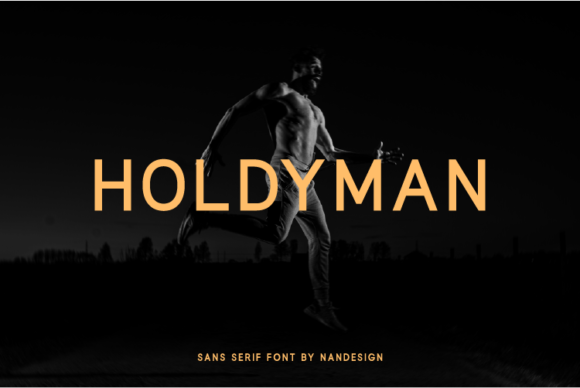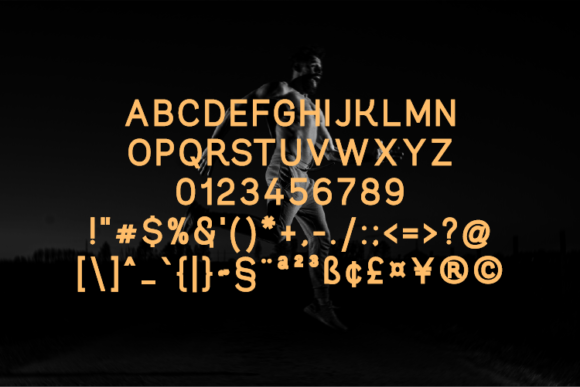
Discover the Timeless Elegance of the Holdyman Font
Remember that moment when you finally find the perfect font for your design project? The one that makes your ideas shine and your audience take notice? For designers, it’s a moment of pure bliss. And for those who are about to experience it, we’re excited to introduce you to the Holdyman Font – a simple yet elegant sans serif font that will elevate your designs to new heights.
With its clean and beautiful arrangement of letters, the Holdyman Font is perfect for both formal and non-formal designs. Whether you’re creating a business logo, a website, or a social media post, this versatile font will add a touch of sophistication and style to your work. Its value lies in its ability to convey professionalism and approachability, making it a valuable asset for designers who want to make a lasting impression.
Holdyman Font Key Features
- Unique Characteristics: Holdyman Font features a unique blend of modern and vintage elements, making it perfect for creating a distinctive look in designs.
Review: Holdyman Font
Overall, I was excited to dive into the Holdyman font, and I have to say it has some great features. ✨ One thing I love is its modern, edgy feel, which would be perfect for a tech or gaming website. The bold lines and geometric shapes give it a lot of visual interest and make it stand out. ✨ Additionally, the font is highly customizable, allowing you to adjust the weight, width, and even the spacing between characters.
However, there are some limitations that I think need to be addressed. ⚠️ One of the biggest issues is the font’s lack of legibility at smaller sizes. I found myself straining to read text at 12pt or smaller, which is a major concern for anyone looking to use this font for body text. ⚠️ Another issue is the font’s limited character set, which may cause problems for users who need to display non-English text.
Here are some specific things I like and dislike about the Holdyman font:
- ✨ Unique, modern design that’s perfect for tech or gaming websites
- ✨ Highly customizable
- ⚠️ Poor legibility at smaller sizes
- ⚠️ Limited character set
Overall, I think the Holdyman font is a great choice for designers who want to add some edge to their projects. However, it’s not without its limitations, and users should be aware of these before making a final decision.
Tips for Getting the Most Out of Holdyman Font
To maximize the effectiveness of the Holdyman font, use it in contexts where its unique, handwritten style can add character and personality. Consider using it for headings, titles, or quotes to create visual interest.
The Holdyman font is ideal for creative projects, such as:
- Birthday invitations or party flyers
- Wedding stationery or event signage
- Brand logos or typography-based designs
Alternatives to “Holdyman Font” for Designers
Playfair Display is an elegant, high-end serif font ideal for luxury branding, advertising, and editorial content. It’s perfect for creating a sophisticated and refined atmosphere.
Comparison: While Holdyman Font has a more vintage and distressed look, Playfair Display is sleek and modern. Playfair Display is more suitable for formal designs, whereas Holdyman Font can be used in more casual and creative projects.